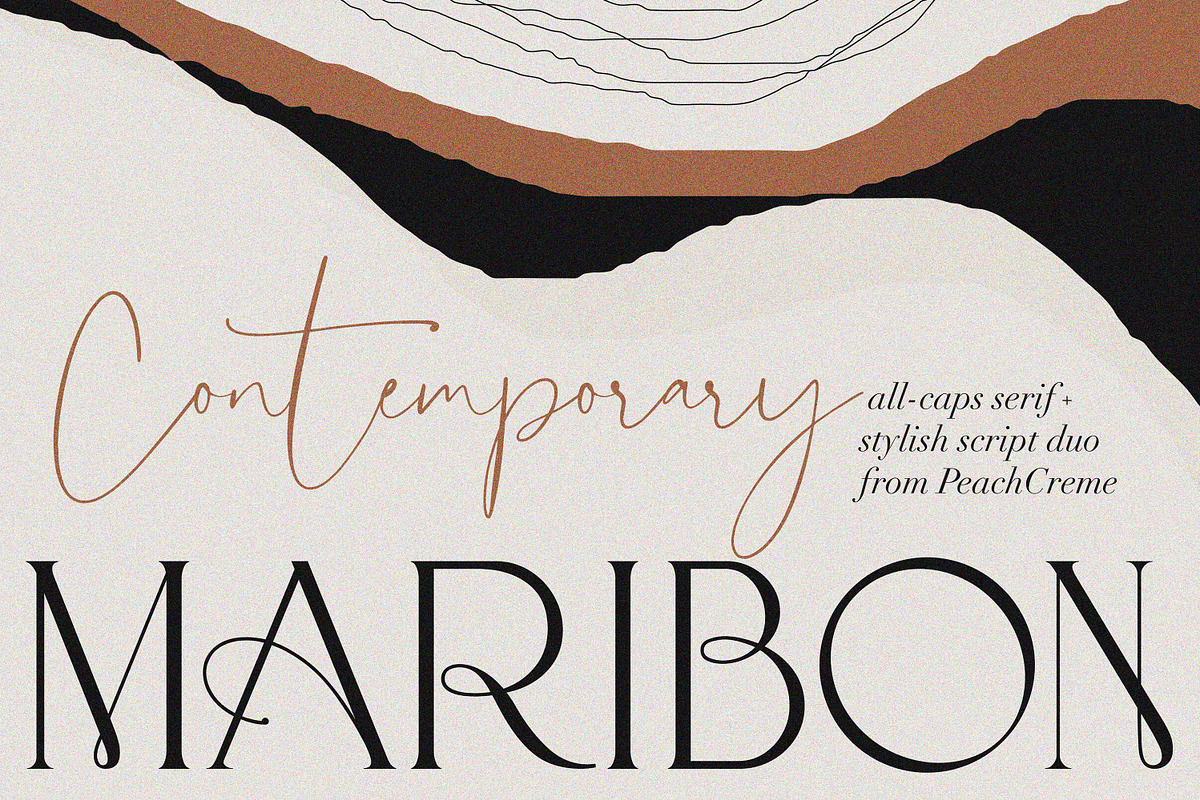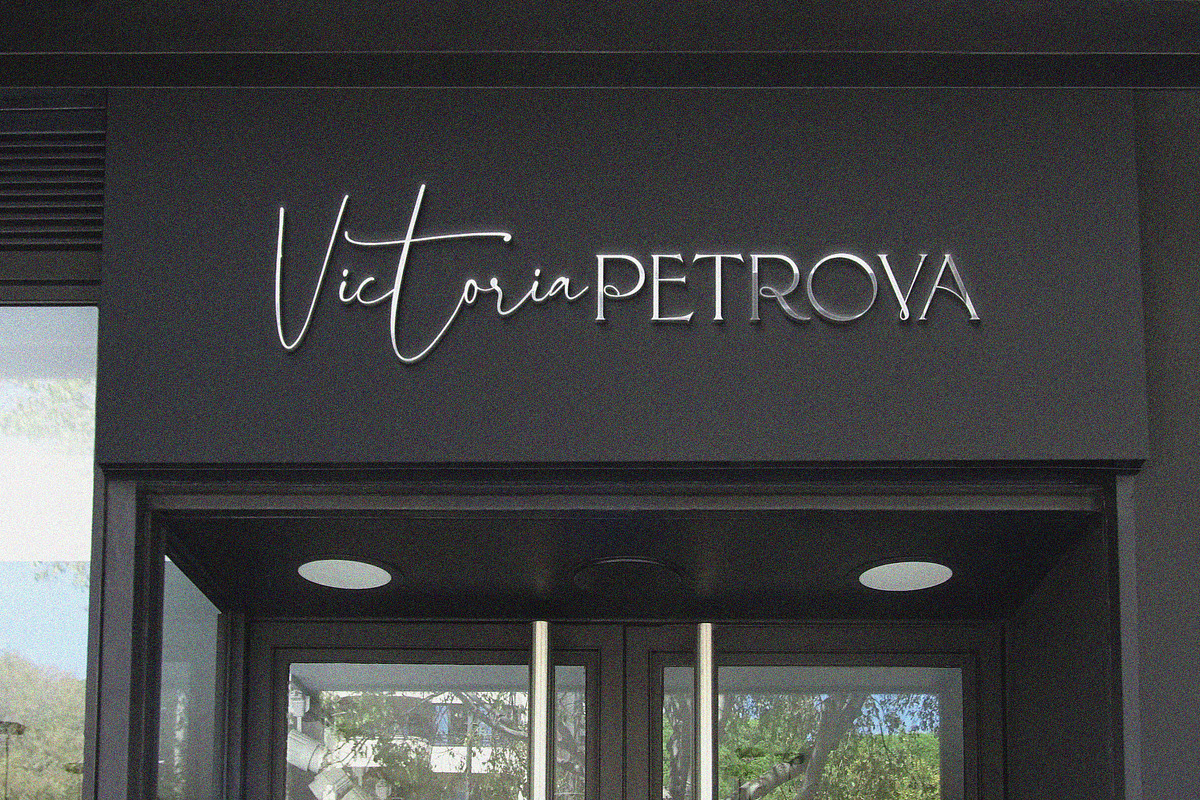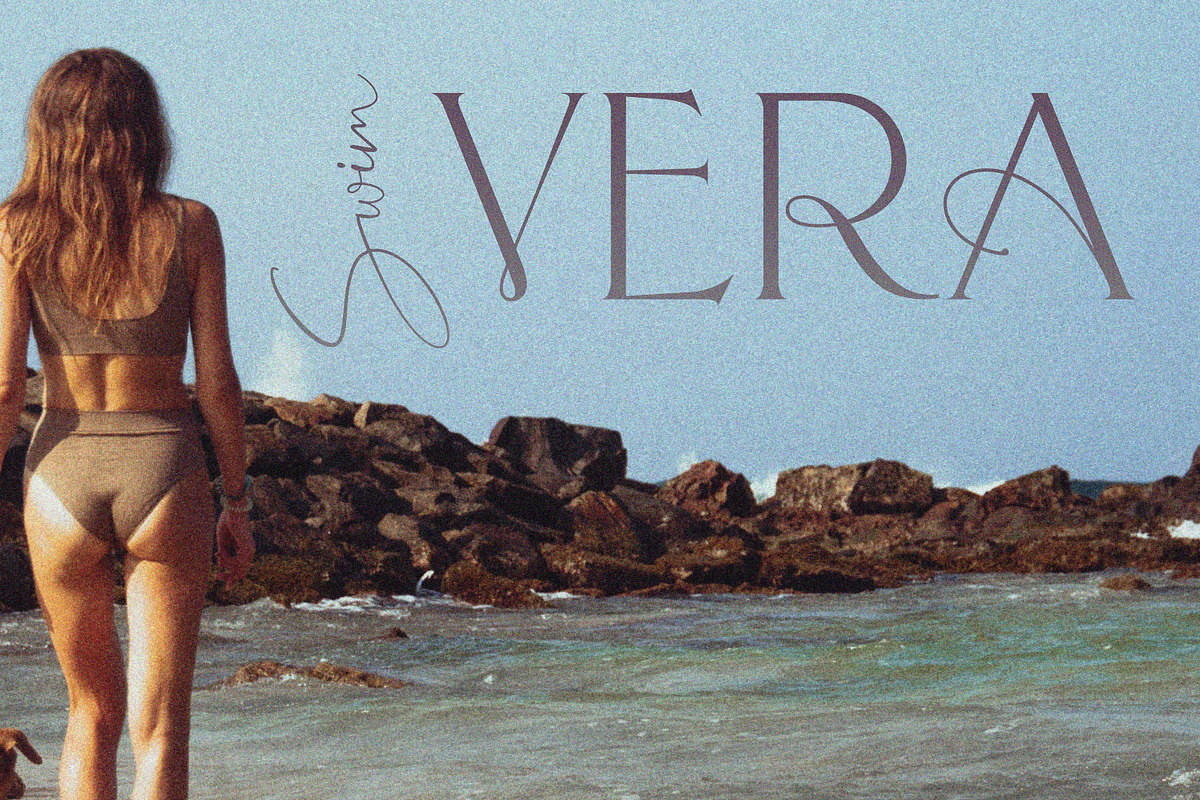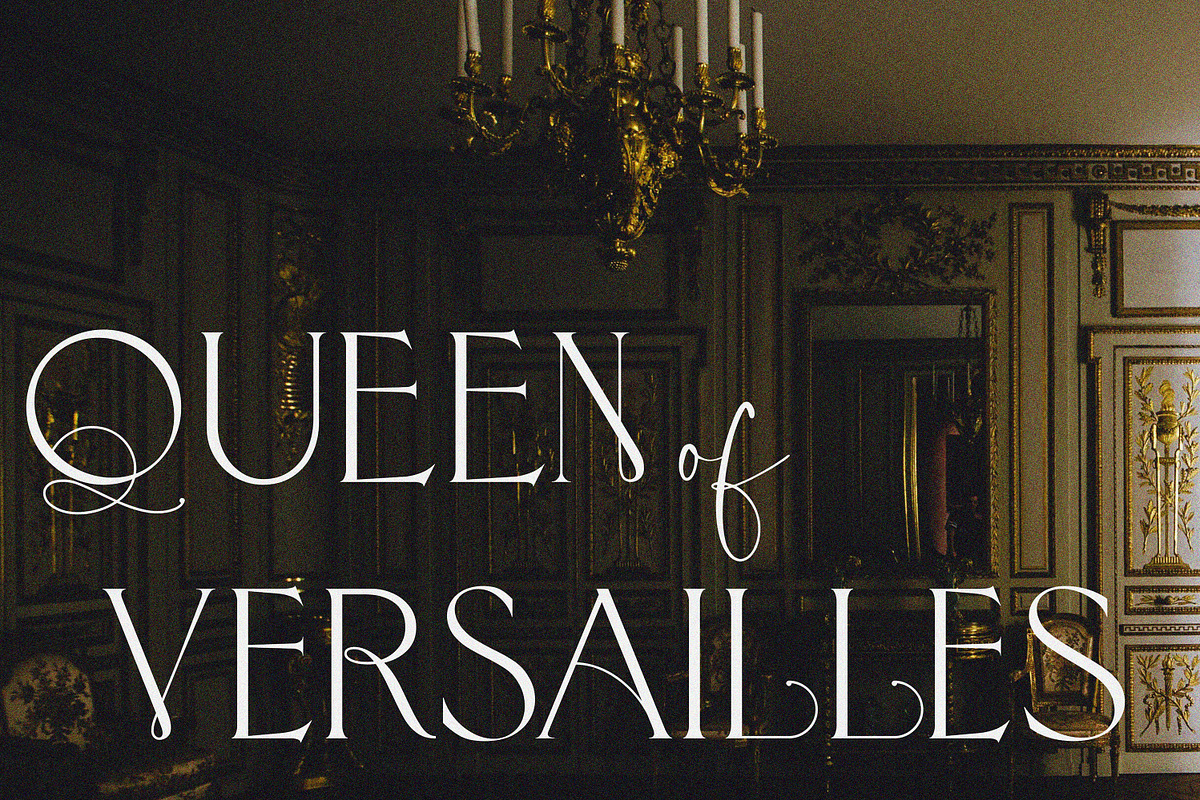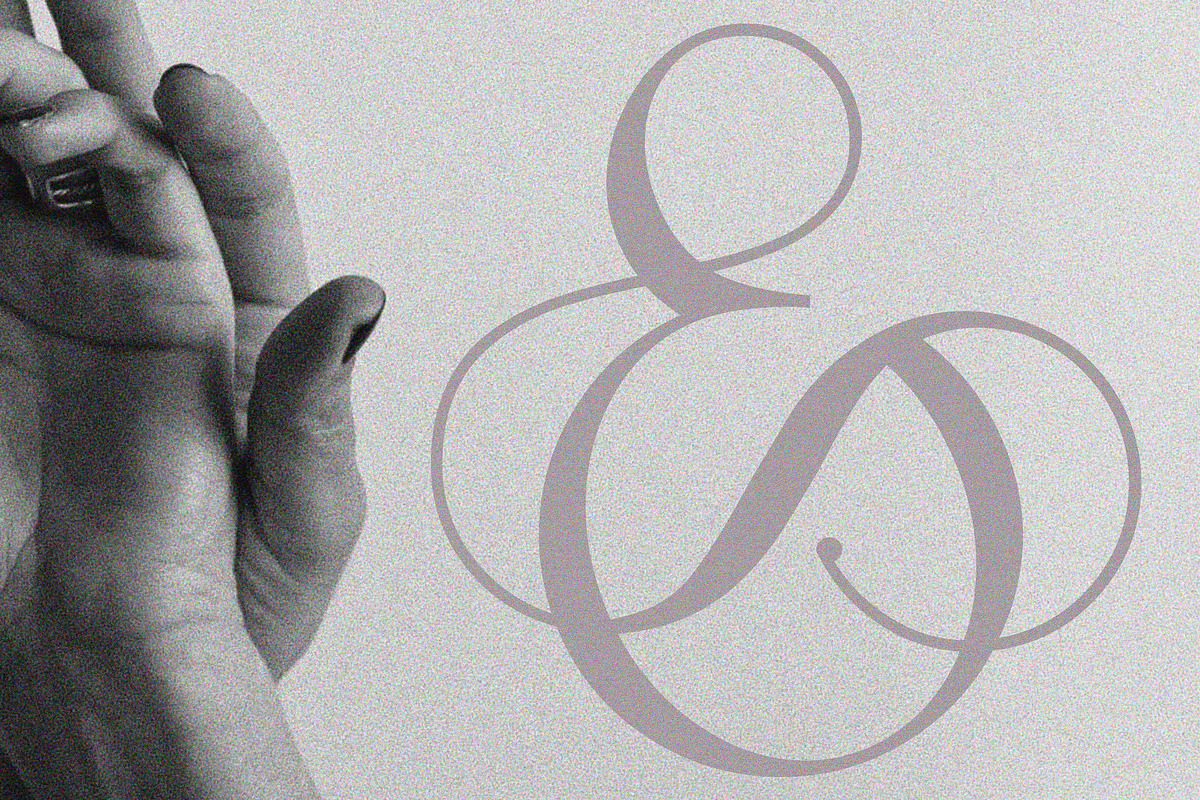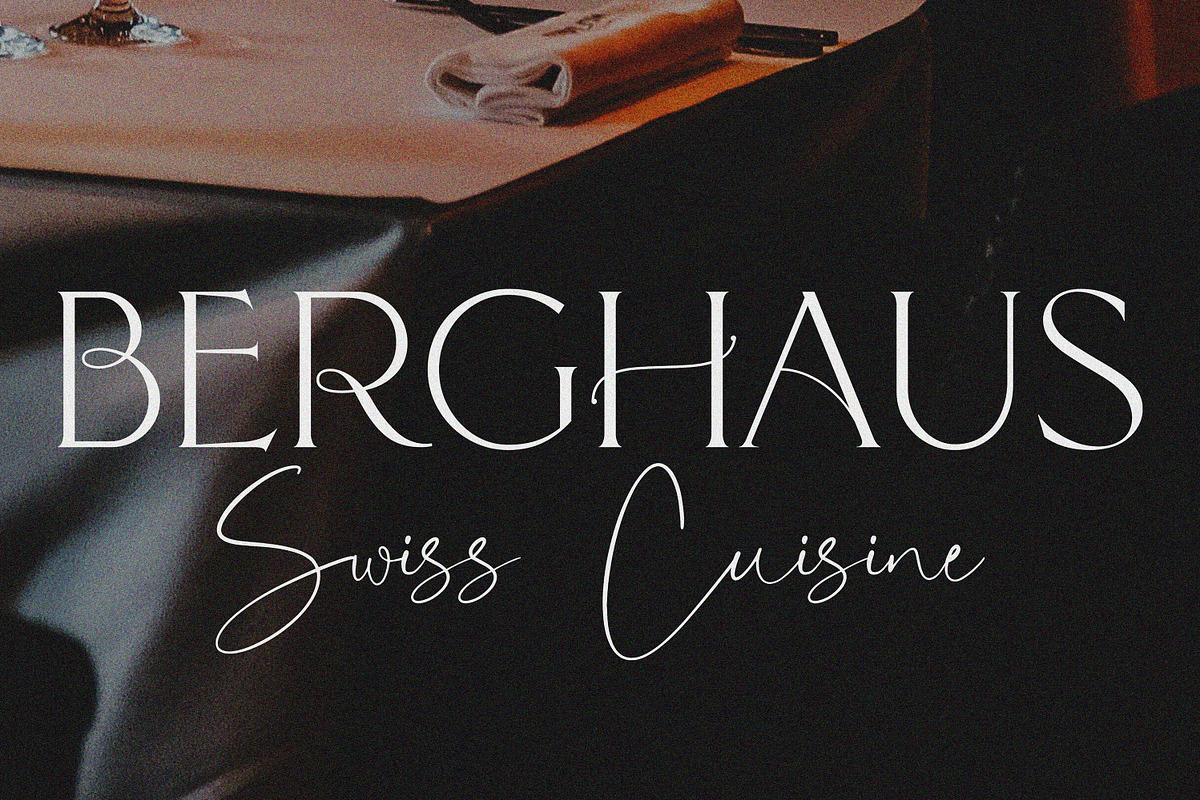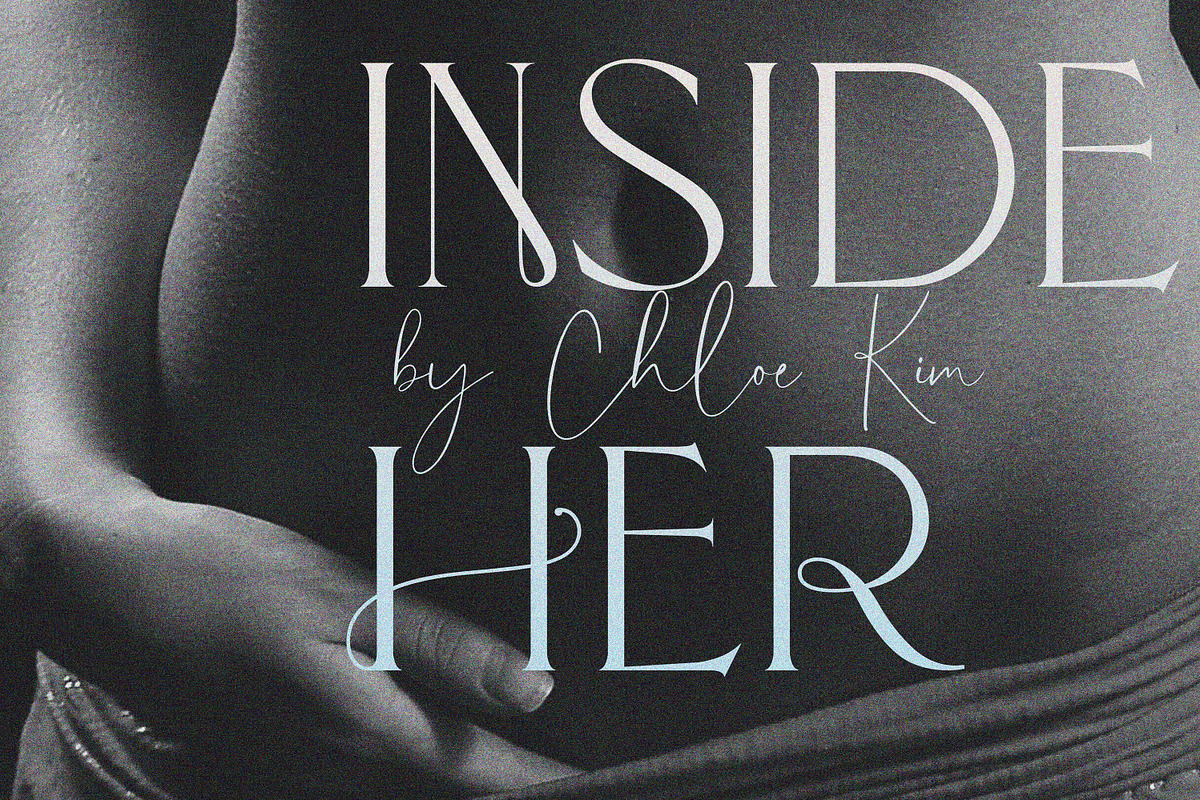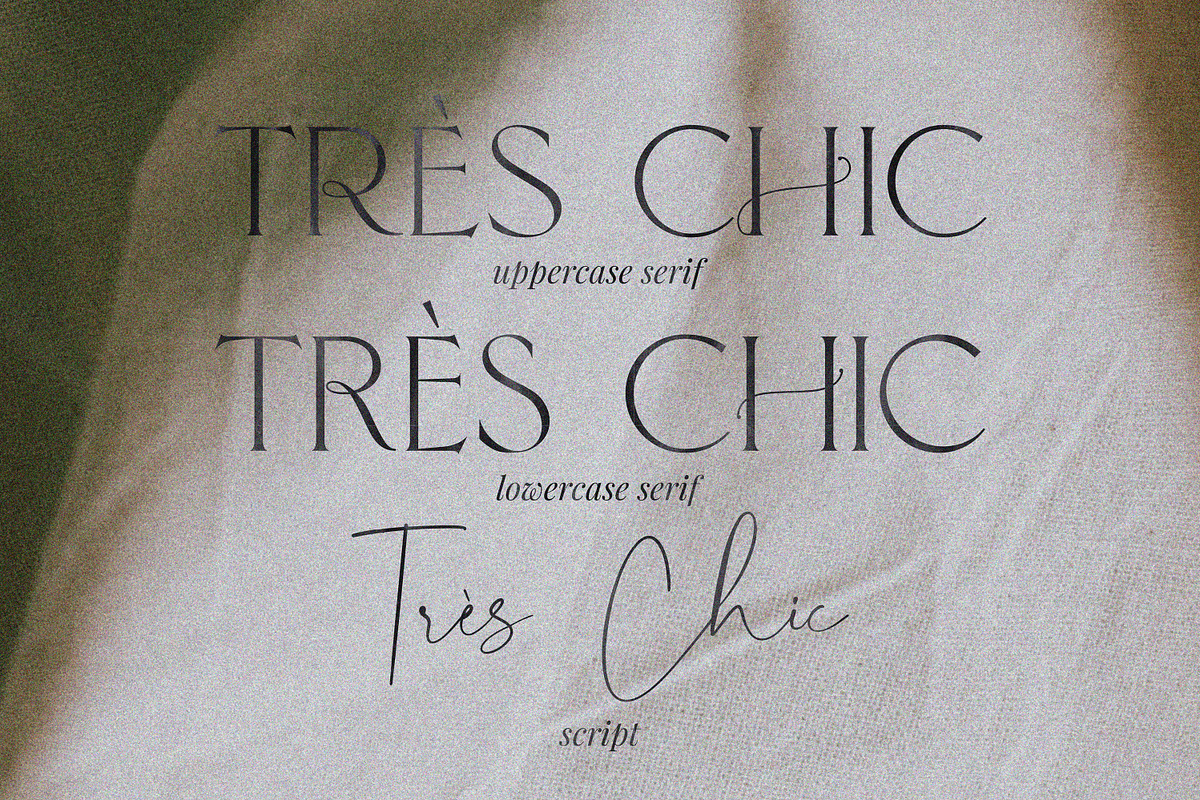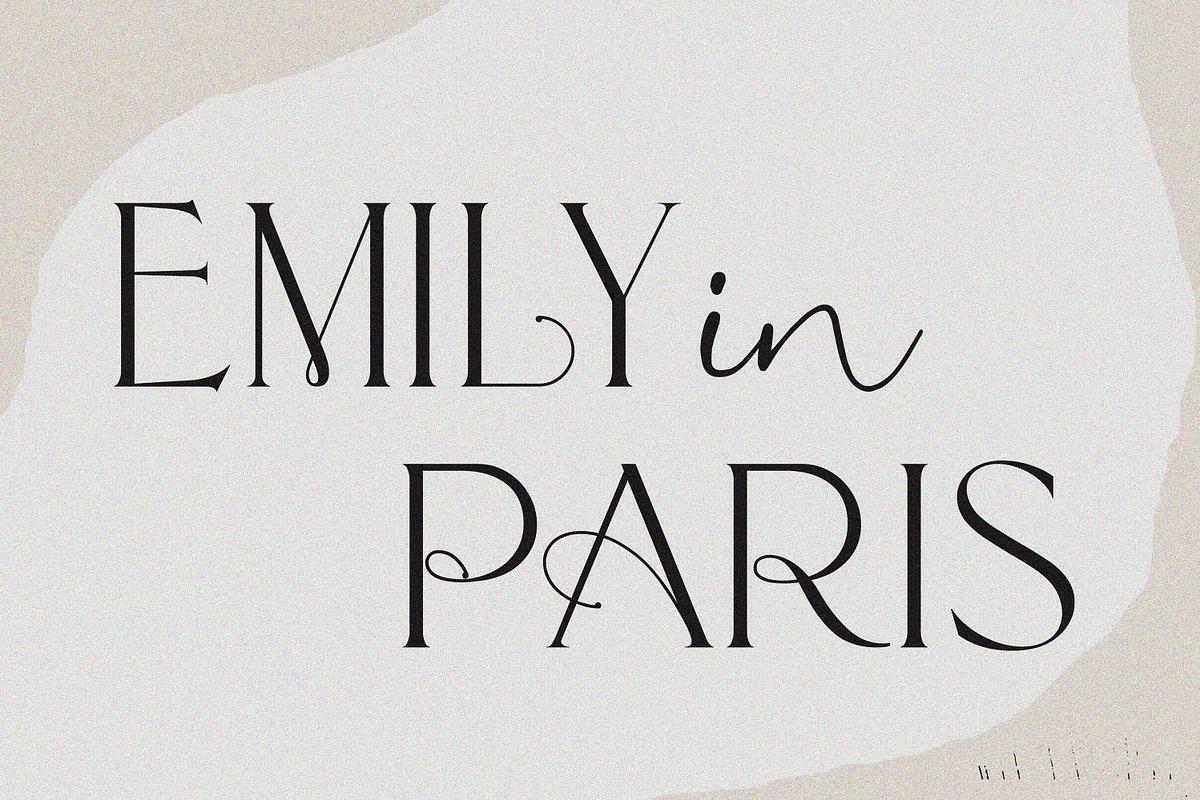
Say hello to our brand new font duo “Maribon“ - a contemporary elegant all-caps serif and stylish script font.
Maribon Serif • A delicate modern serif includes classy regular and multilingual letters, symbols, punctuation, numerals and brings a touch of character to any design.
Maribon Script • A clean, elegant hand-drawn script font with natural flow contains upper & lowercase characters, all punctuation, numerals, and gives a custom-made feel to any text.
"Maribon" Font Duo is a perfect choice for logos, headlines, social media posts, invitations and so many more.